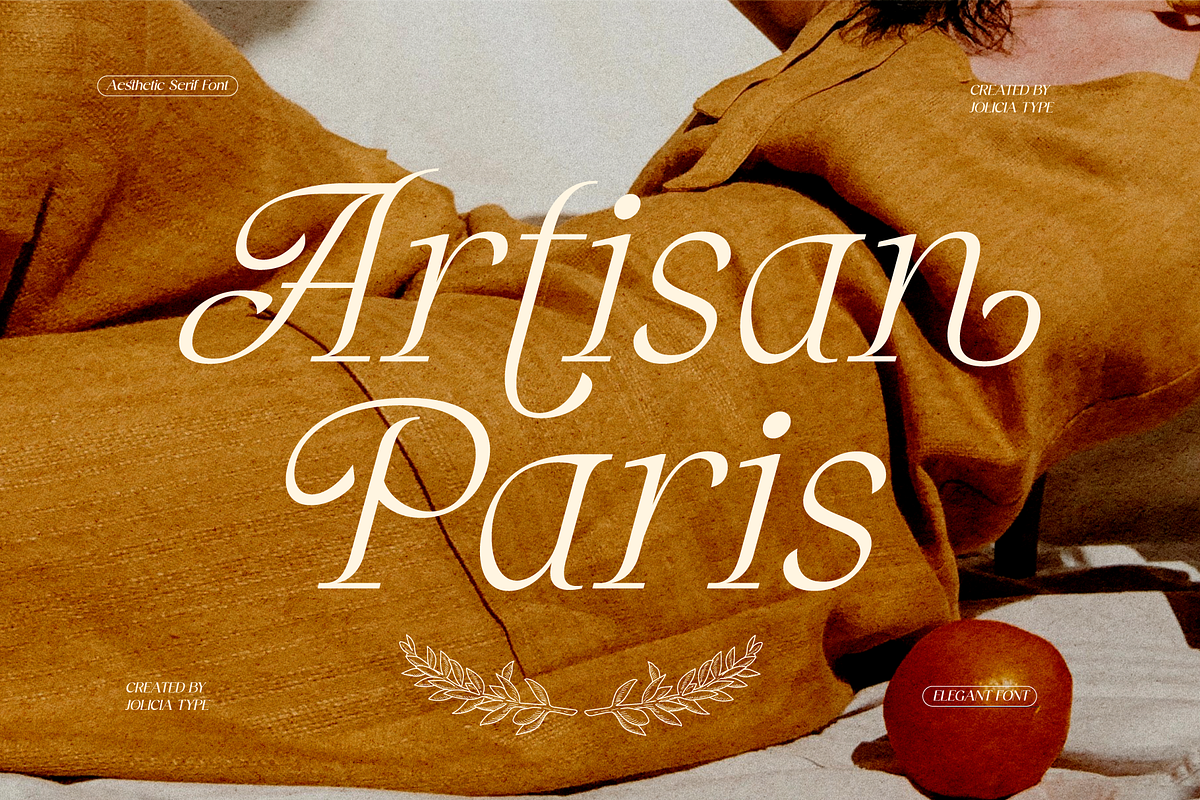
Artisan Paris | Display Font Free Download
Step into a world of elegance and refinement with the Artisan Paris | Display Font Free Download. Inspired by the timeless charm of Parisian design, this display font blends classic sophistication with modern flair. Ideal for high-end branding, fashion editorials, luxury packaging, and boutique signage, it turns any text into a statement of style.
With its graceful curves and balanced contrast, Artisan Paris commands attention while maintaining an air of subtlety. Whether you're crafting a chic logo or designing an upscale invitation, this font delivers a polished and artistic look that speaks volumes.